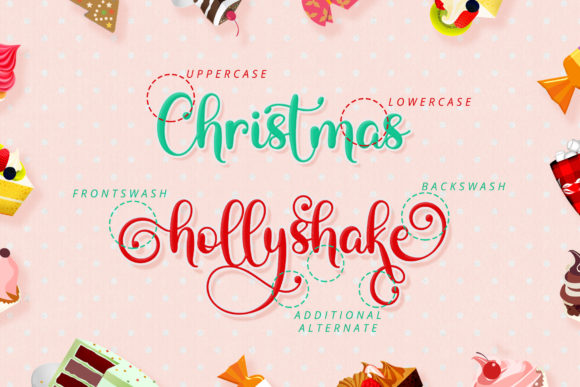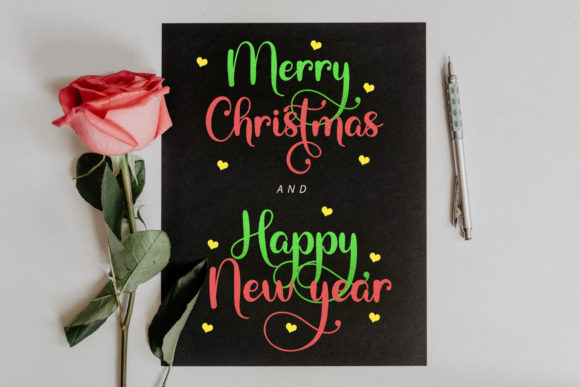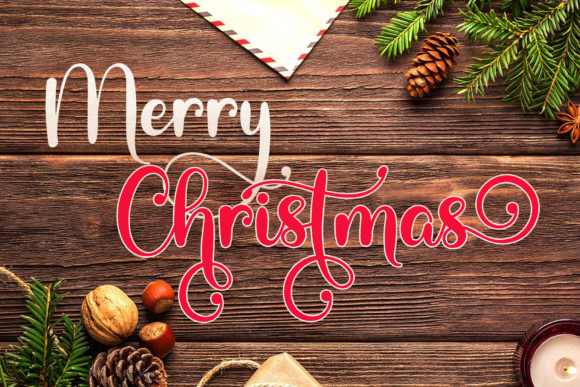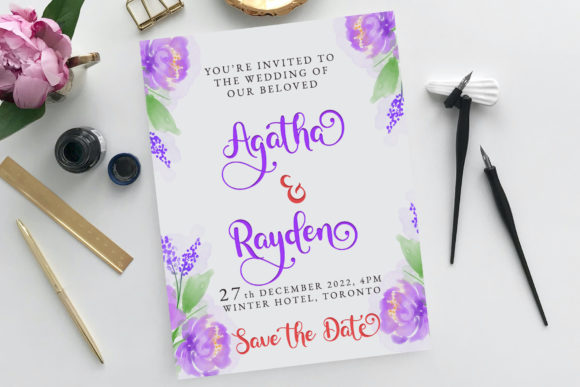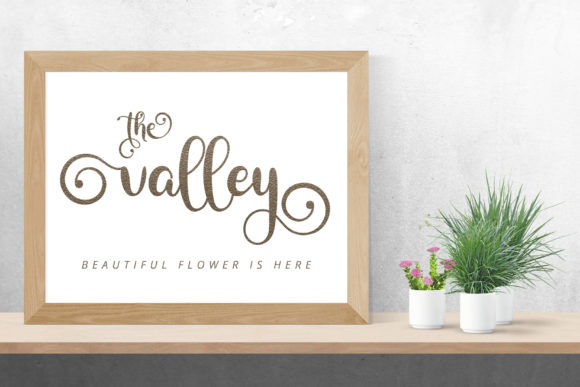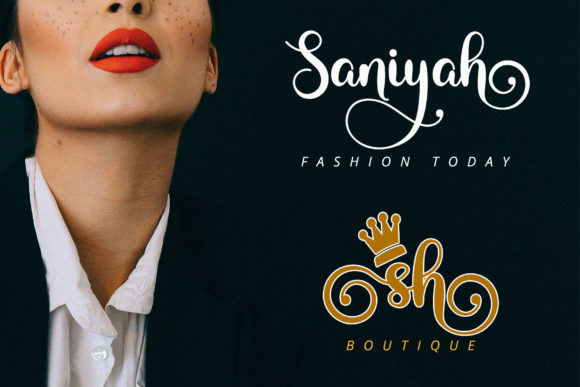
Introducing Christmas Jellyshake Font: The Sweetest Calligraphy Font for Your Holiday Projects
Are you looking for a font that captures the essence of the holiday season? Do you want to add a touch of elegance and sophistication to your Christmas-themed projects? Look no further than Christmas Jellyshake Font, a beautiful and sweet calligraphy font that’s perfect for designers, crafters, and anyone looking to create stunning holiday designs.
What Makes Christmas Jellyshake Font So Special?
Christmas Jellyshake Font is a fresh, modern, and elegant calligraphy font that’s specifically designed to bring a touch of holiday magic to your projects. Its unique and flowing script style makes it perfect for a wide range of applications, from wedding invitations and greeting cards to social media quotes, branding, and more.
Whether you’re a designer looking for a font to use in your next project or a crafter searching for a special font to use in your handmade holiday cards and decorations, Christmas Jellyshake Font is the perfect choice. Its sweet and festive vibe is sure to capture the hearts of everyone who sees it.
Why You’ll Love Christmas Jellyshake Font
So, what makes Christmas Jellyshake Font so lovable? Here are just a few reasons why you’ll adore this beautiful calligraphy font:
- Fresh and Modern: Christmas Jellyshake Font is a modern calligraphy font that’s perfect for designers and crafters who want to create fresh and contemporary holiday designs.
- Elegant and Sophisticated: With its flowing script style and elegant lines, Christmas Jellyshake Font adds a touch of sophistication to any project.
- Versatile: This font is perfect for a wide range of projects, from wedding invitations and greeting cards to social media quotes, branding, and more.
How to Use Christmas Jellyshake Font in Your Projects
Now that you know how amazing Christmas Jellyshake Font is, let’s talk about how to use it in your projects. Here are a few ideas to get you started:
- Wedding Invitations: Use Christmas Jellyshake Font to create beautiful and elegant wedding invitations that will set the tone for your special day.
- Holiday Cards: Add a touch of holiday magic to your greeting cards with Christmas Jellyshake Font.
- Social Media Quotes: Use Christmas Jellyshake Font to create stunning social media quotes that will capture the hearts of your followers.
- Branding: Add a touch of elegance and sophistication to your brand with Christmas Jellyshake Font.
- Handmade Crafts: Use Christmas Jellyshake Font to add a personal touch to your handmade holiday crafts, such as decorations, gift tags, and more.
Tips and Tricks for Getting the Most Out of Christmas Jellyshake Font
Here are a few tips and tricks to help you get the most out of Christmas Jellyshake Font:
- Experiment with Different Sizes: Try using Christmas Jellyshake Font in different sizes to see how it looks in various contexts.
- Pair it with Other Fonts: Experiment with pairing Christmas Jellyshake Font with other fonts to create unique and interesting combinations.
- Use it in Combination with Images: Use Christmas Jellyshake Font in combination with images to create stunning holiday designs.
In conclusion, Christmas Jellyshake Font is a beautiful and sweet calligraphy font that’s perfect for designers, crafters, and anyone looking to create stunning holiday designs. Its fresh, modern, and elegant style makes it perfect for a wide range of projects, from wedding invitations and greeting cards to social media quotes, branding, and more.